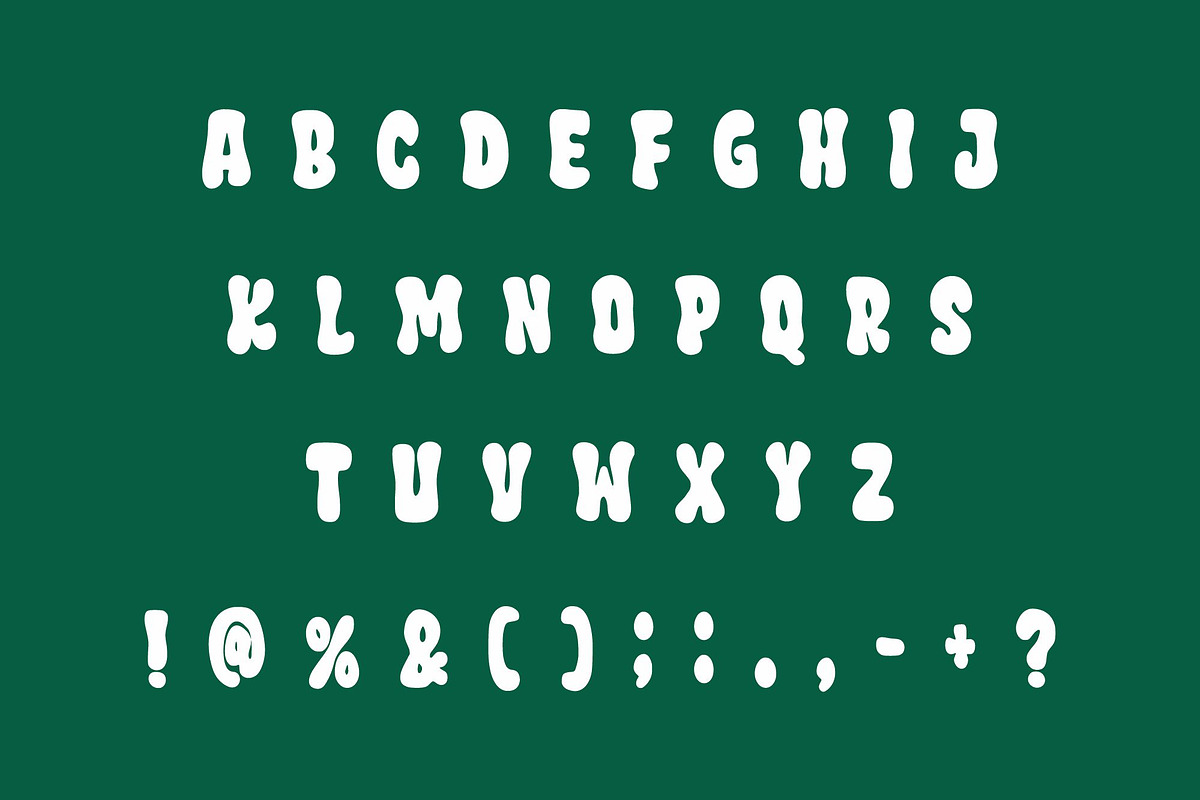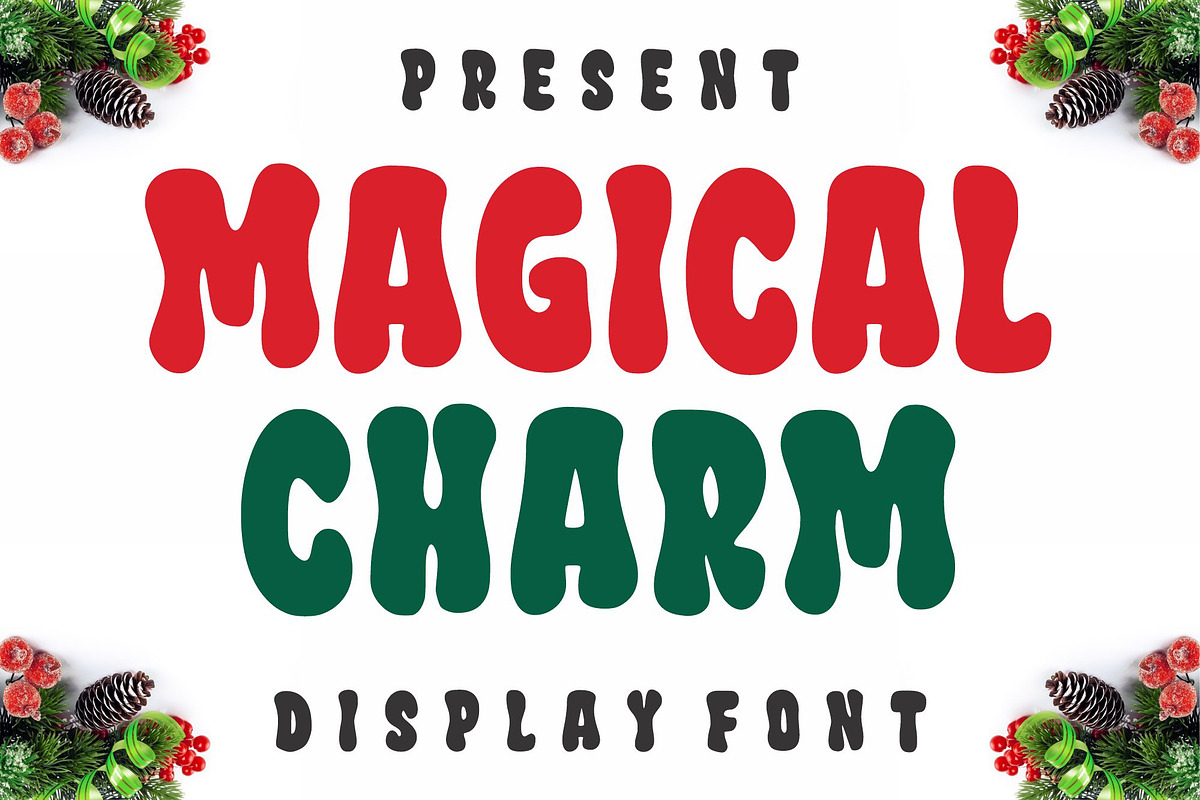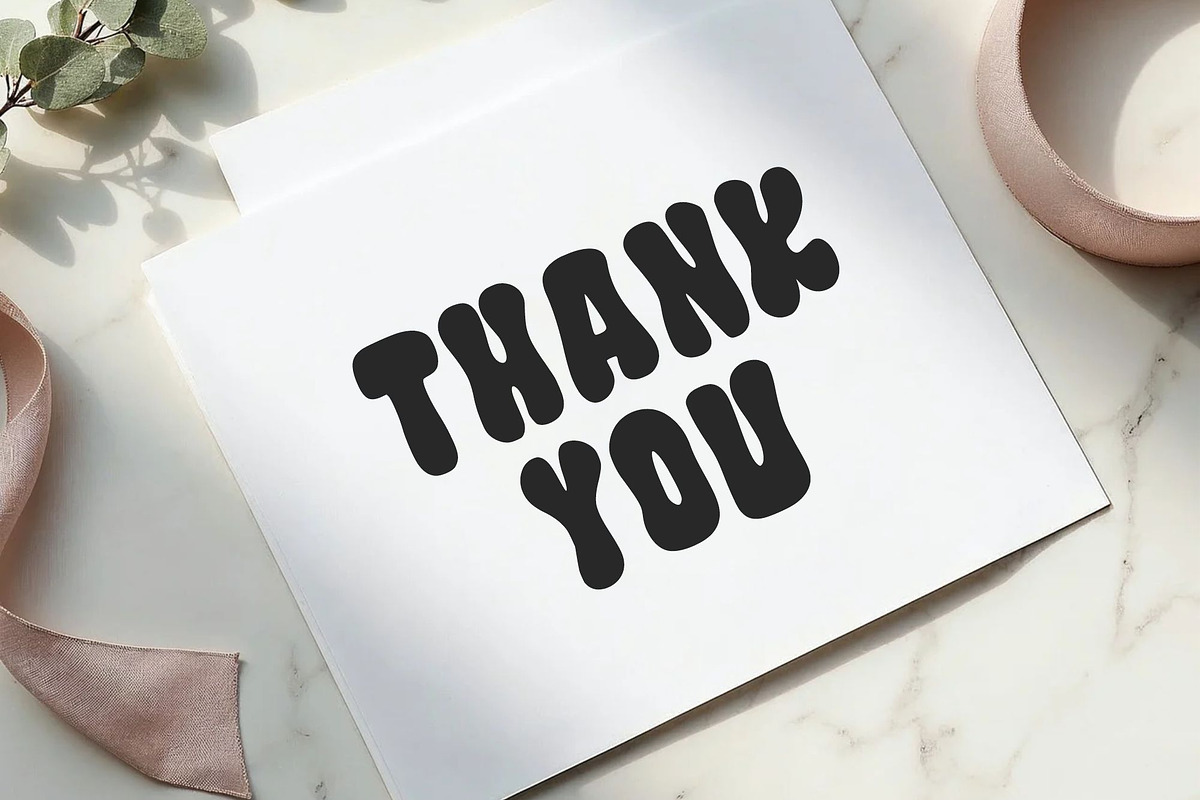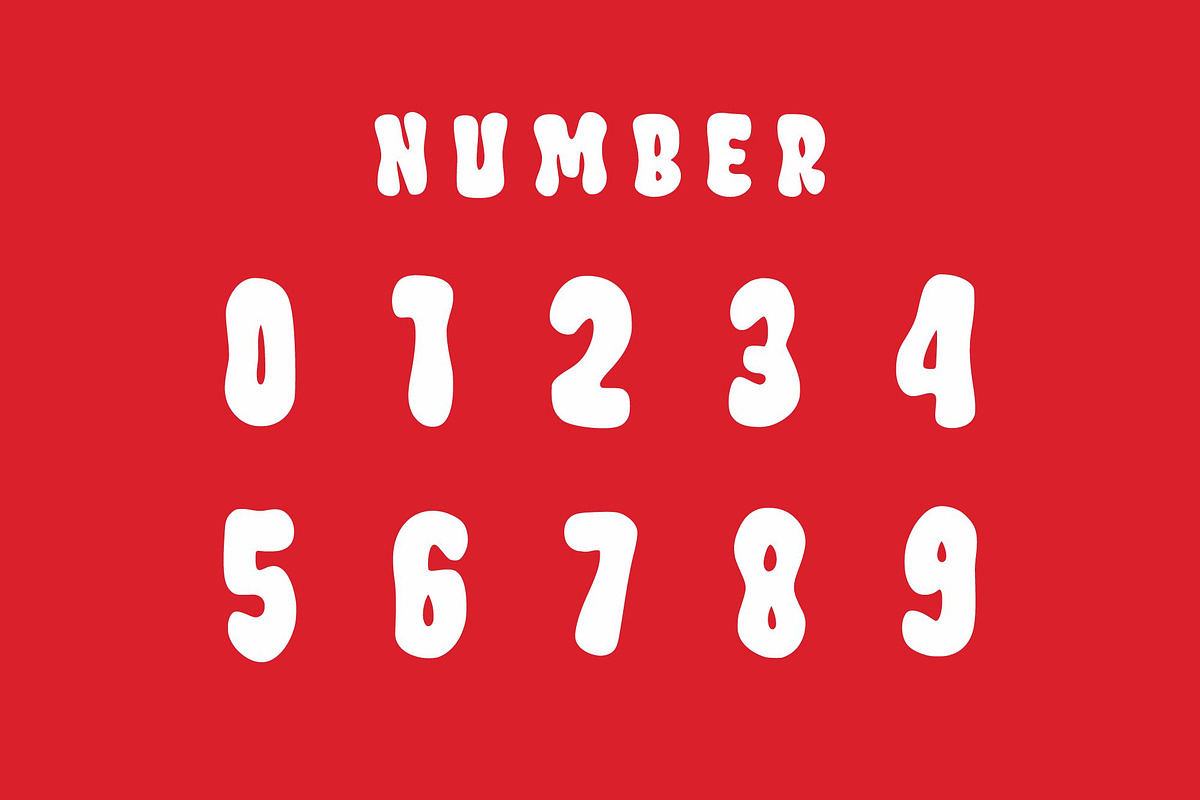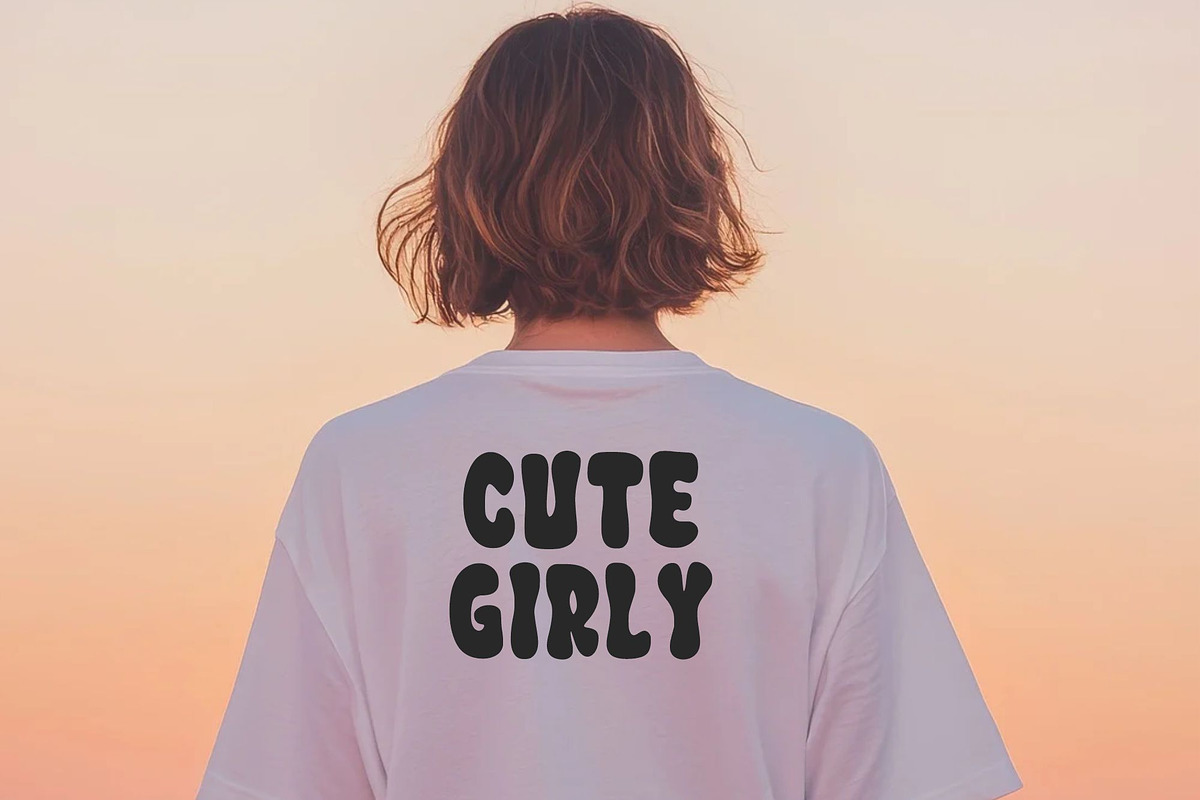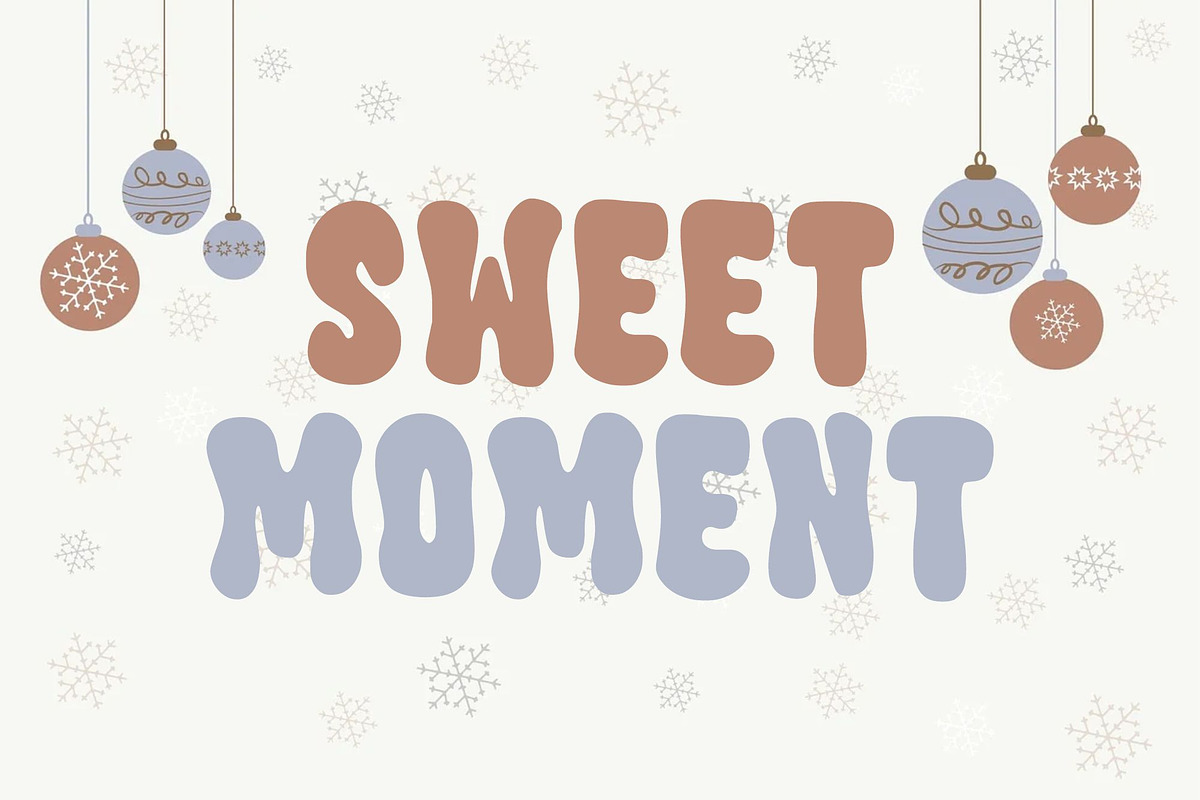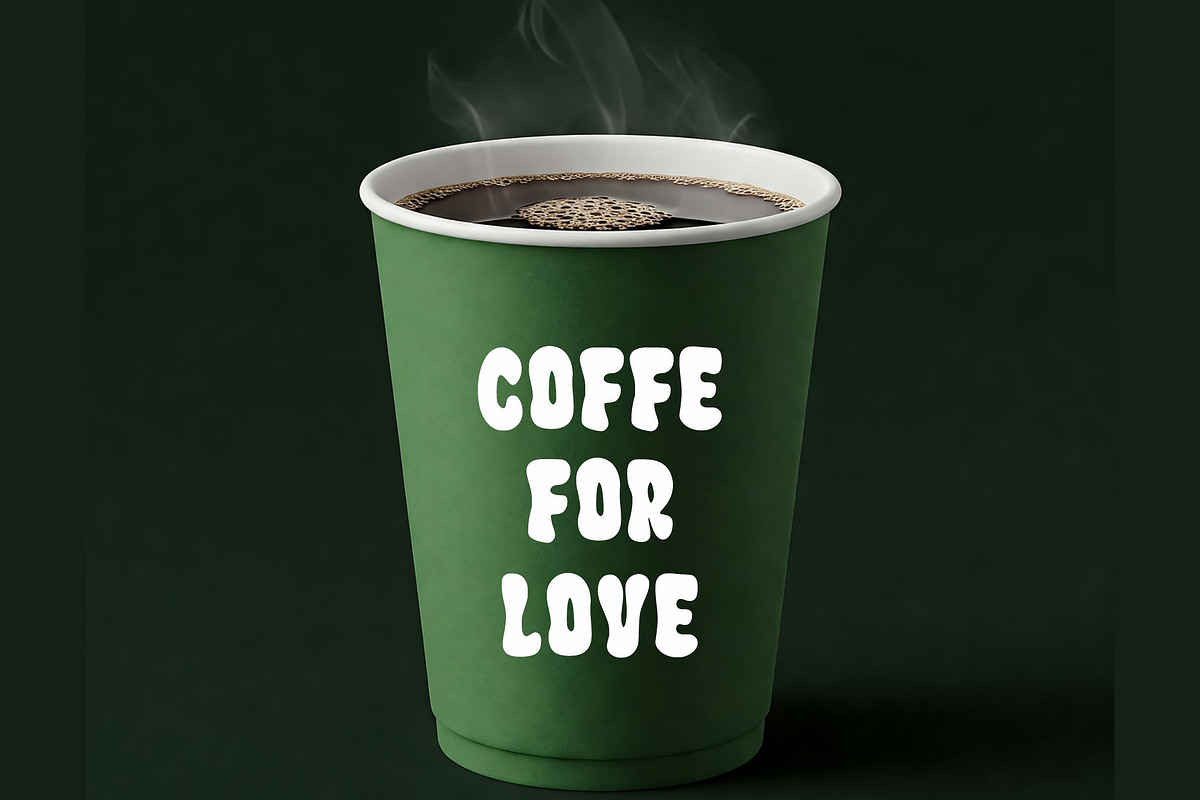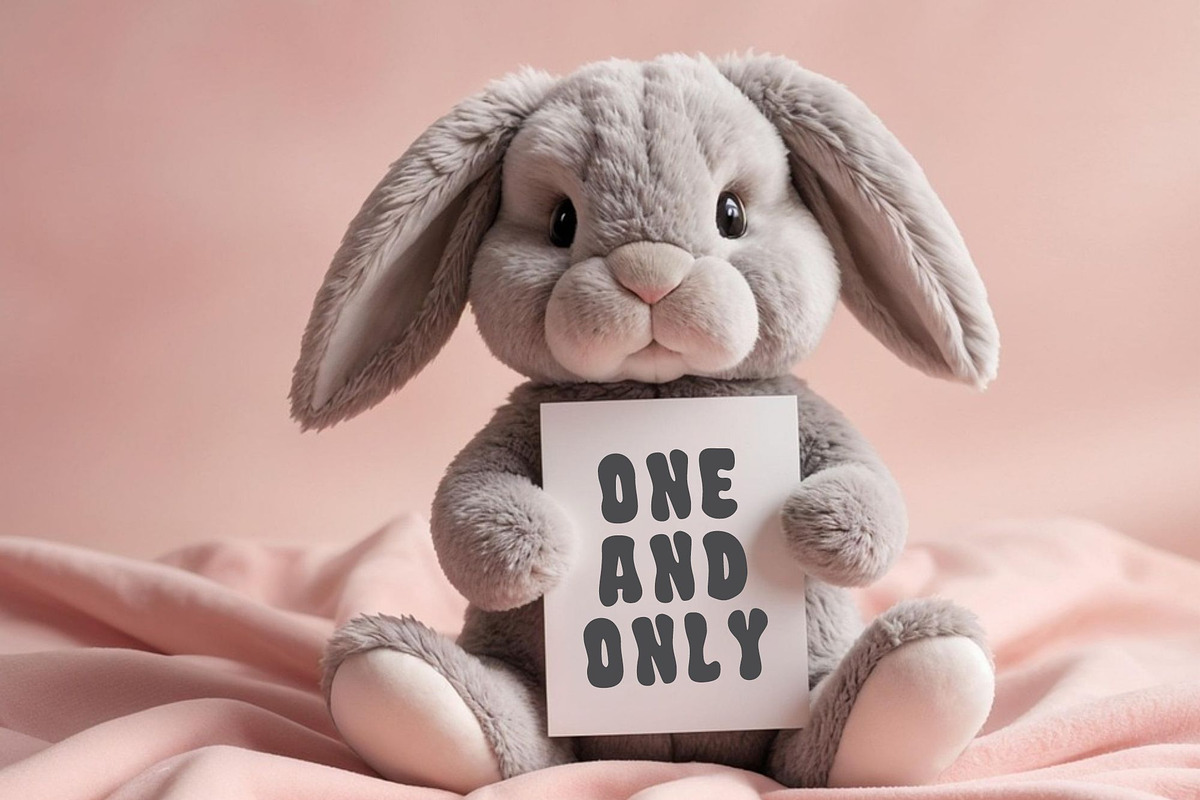
Magical Charm
Bring cheer to your designs with Magical Charm, a bold and playful display font perfect for festive projects. Its chunky, hand-drawn style with bright, cheerful vibes makes it ideal for Christmas cards, invitations, posters, T-shirt designs, mugs, tote bags, and more.